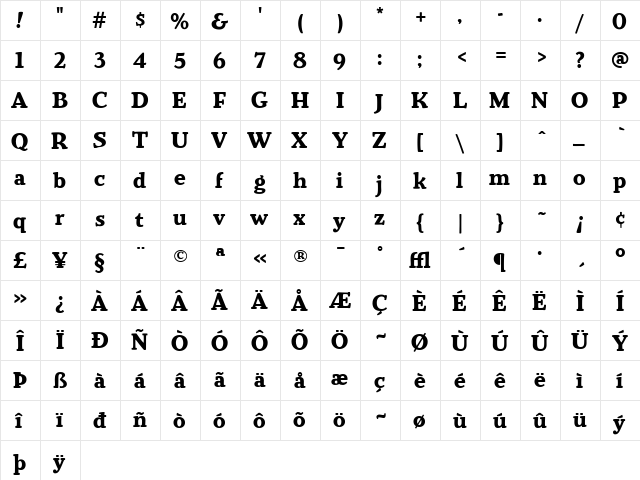
QK Roxy Regular
Design Context for QK Roxy Typeface
QK Roxy takes a measured approach to typography — its balanced proportions and neutral character make it a reliable workhorse for both digital and print work.